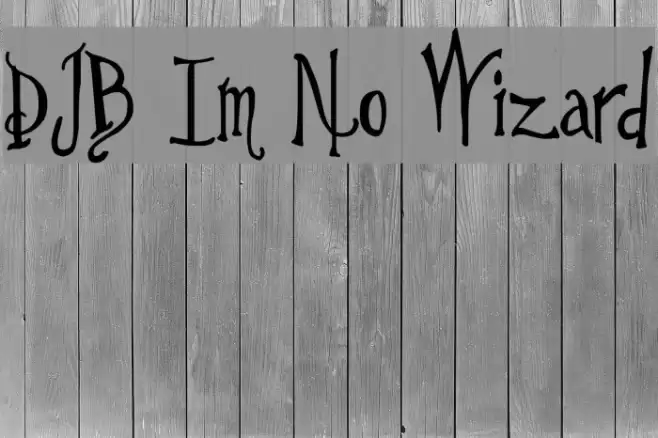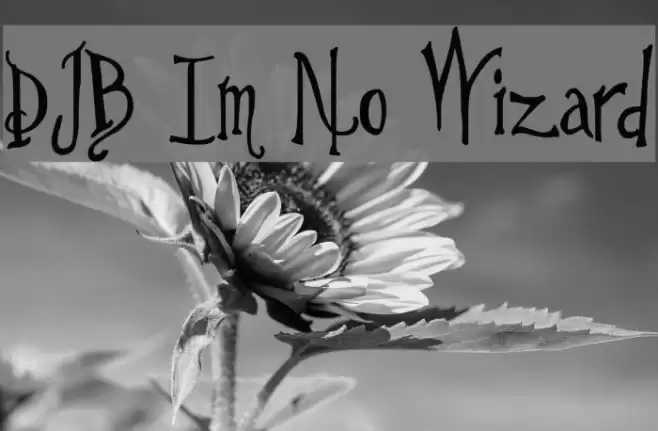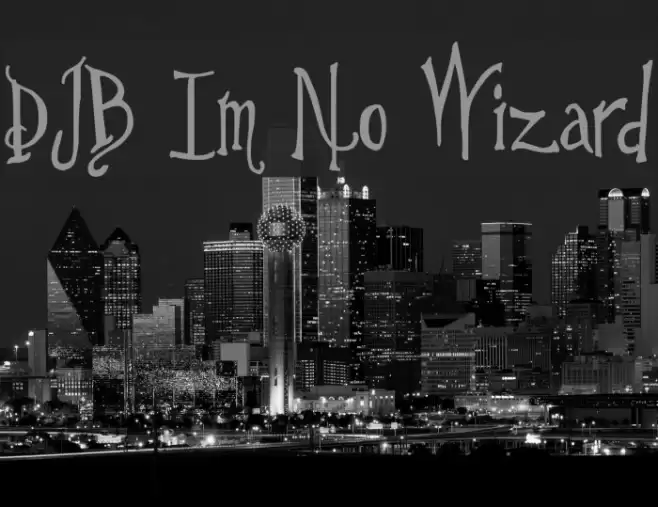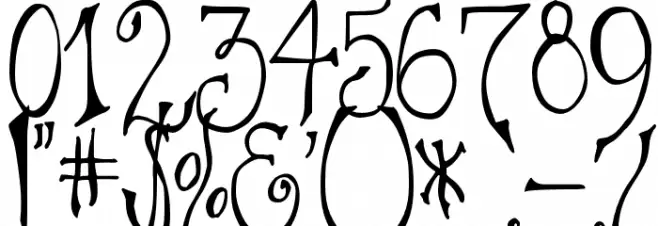
DJB Im No Wizard Font
DJB Im No Wizard Description
This whimsical and playful font features a unique, hand-drawn style with a touch of magic. The characters are tall and narrow, with irregular strokes and quirky serifs that give it a fantastical appearance. The uppercase letters are particularly distinctive, with some incorporating swirling or elongated elements. The lowercase letters maintain a consistent style, though they vary in width and height, adding to the font's charm. Numbers and special characters follow the same whimsical design, making this font perfect for creative projects.
- Proposed Projects: Ideal for fantasy-themed projects, children's books, playful invitations, or any design requiring a touch of magic and whimsy.
- Overall Style: Whimsical, Playful, Magical
- Use Case: Headlines, Logos, Creative projects